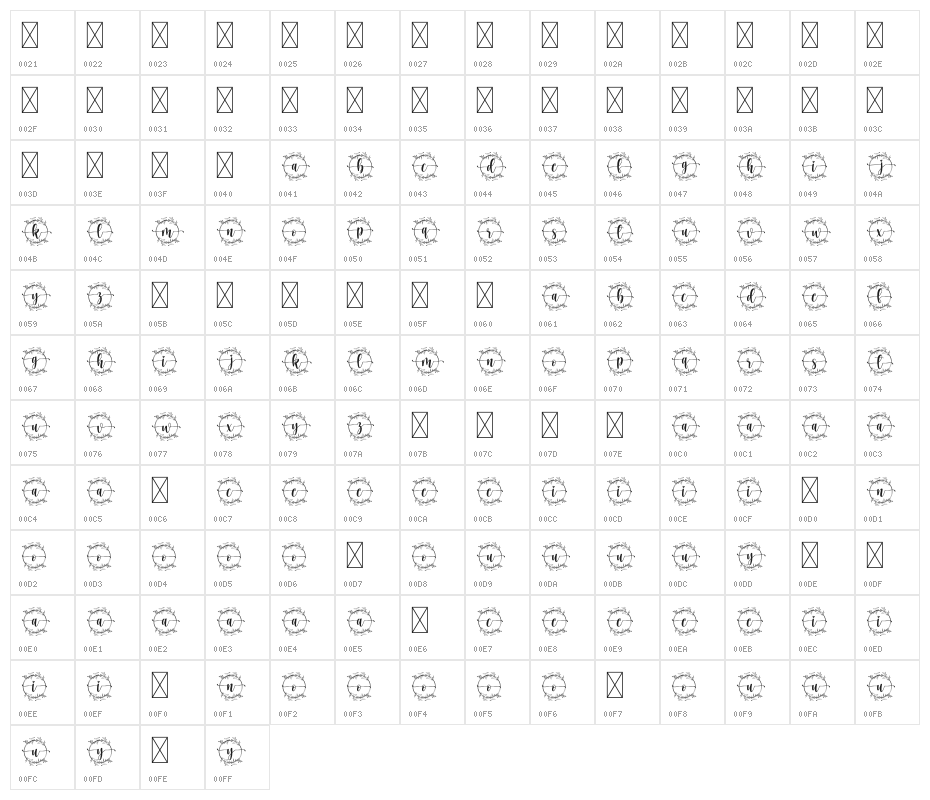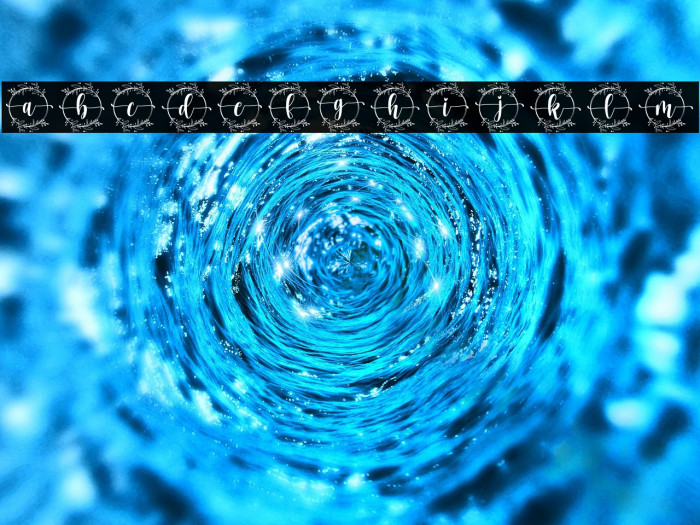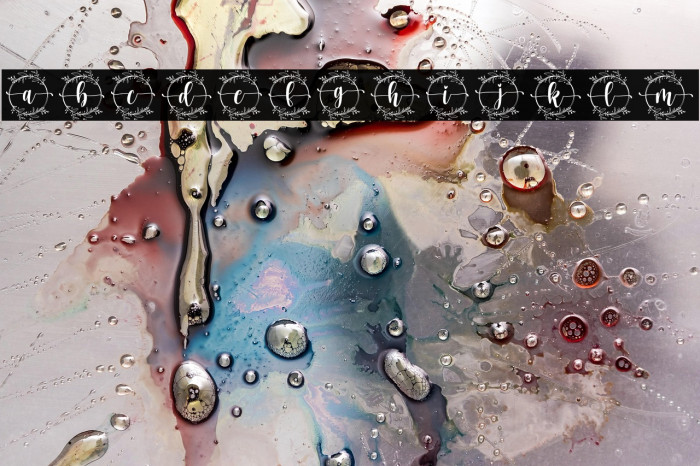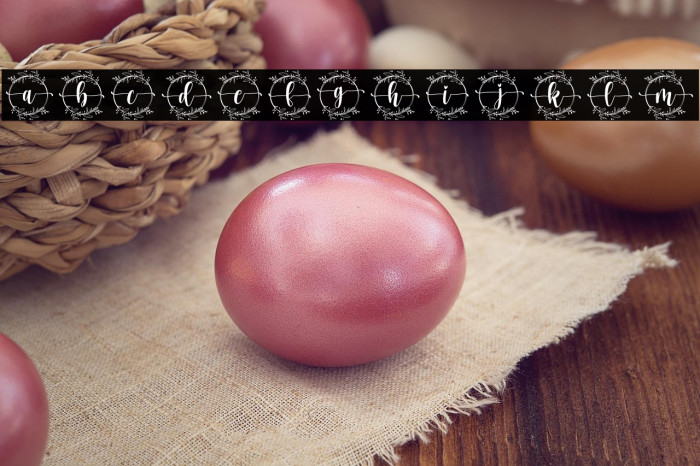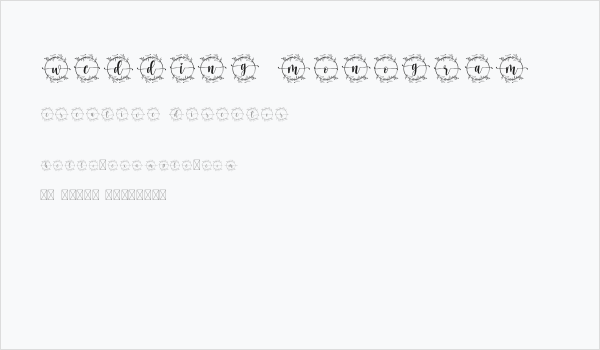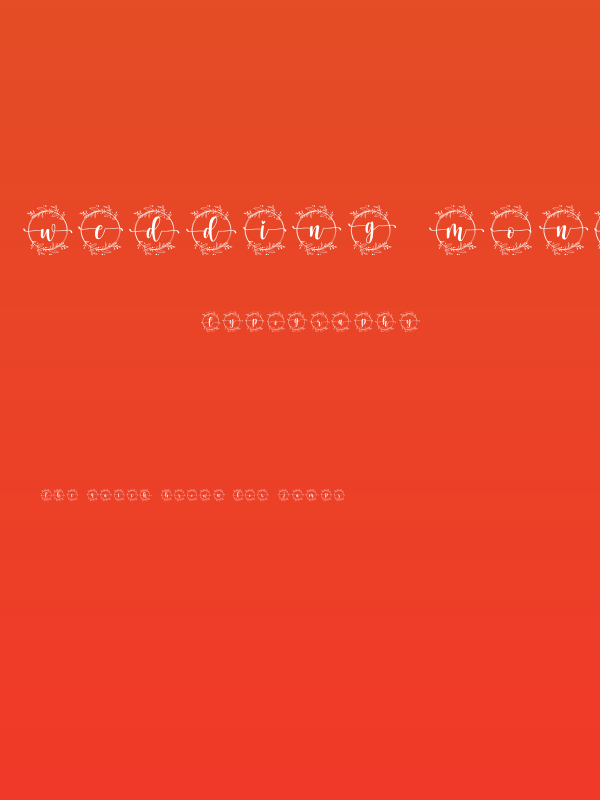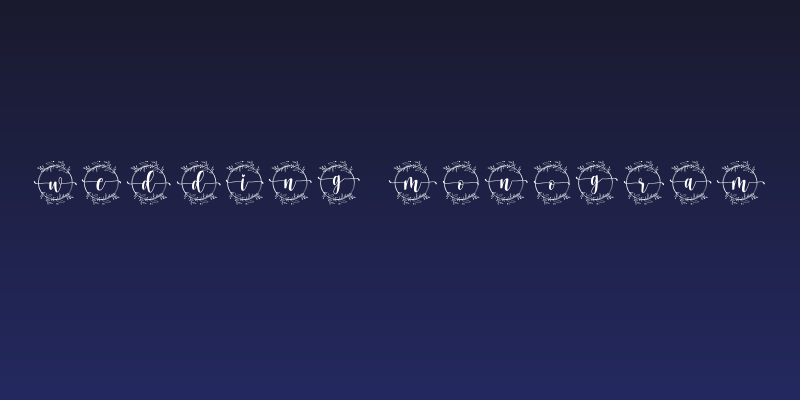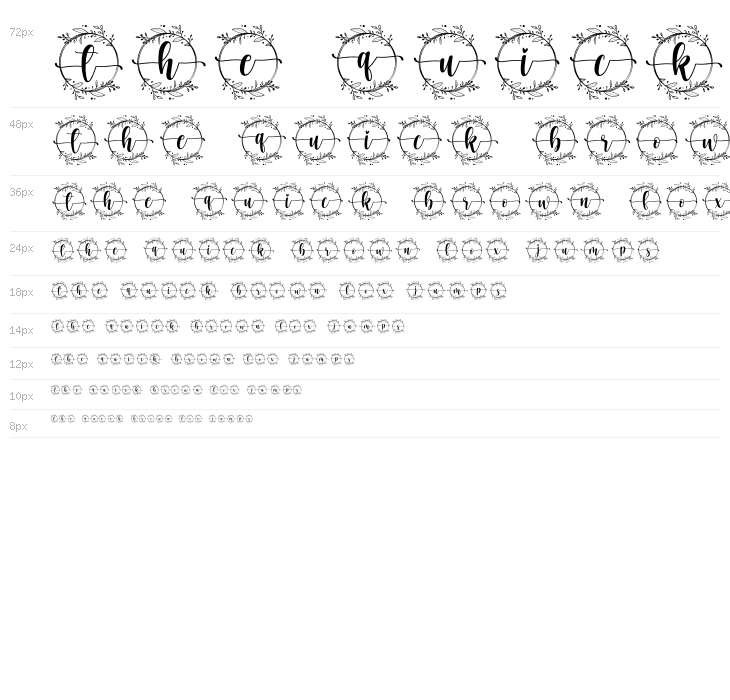
Wedding Monogram Font
Wedding Monogram Description
This elegant and decorative font features each letter encased within a delicate wreath, adding a touch of sophistication and charm. The script style of the letters is fluid and graceful, with gentle curves and a handwritten feel that exudes elegance. The wreaths surrounding the letters are composed of fine, intricate lines that resemble delicate foliage, enhancing the overall aesthetic with a natural and organic touch. This font is perfect for creating personalized monograms, wedding invitations, or any project that requires a touch of refinement and beauty. The combination of the script lettering and the decorative wreaths creates a harmonious and visually appealing design that is both timeless and stylish.
| Overall Style | Elegant, Decorative |
| Use Case | Monograms, Invitations, Decorative Text |
| Proposed Projects | Ideal for wedding invitations, personalized monograms, elegant stationery, and decorative branding. |